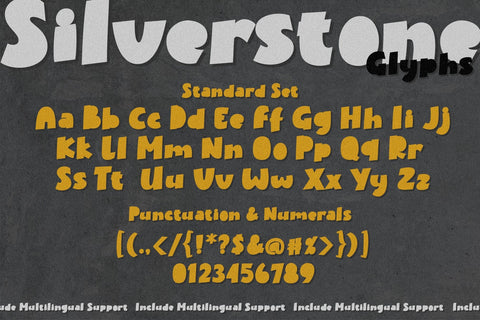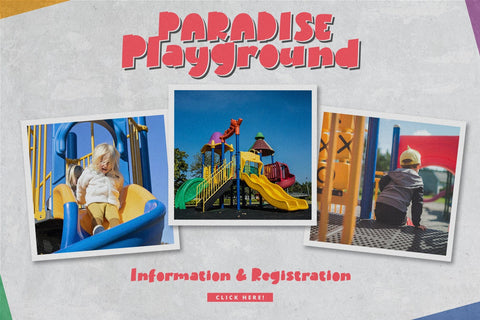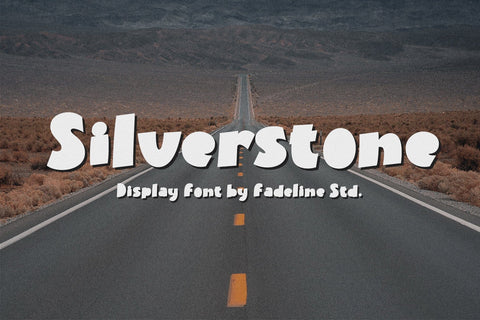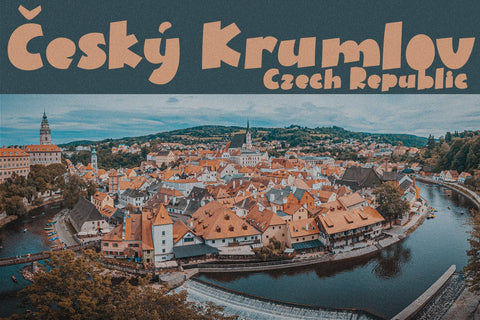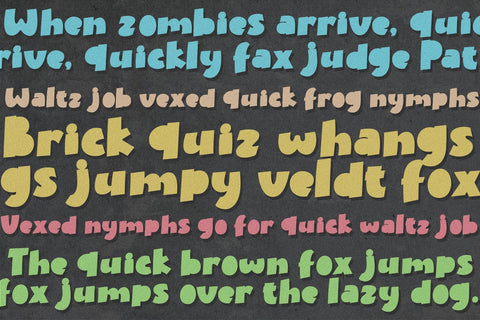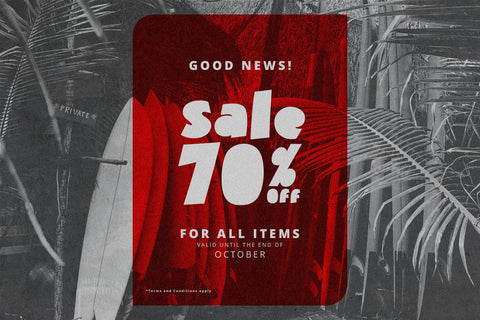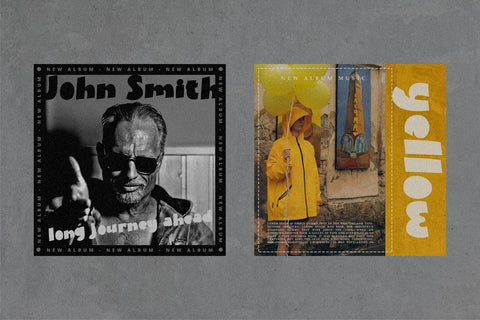
Silverstone | Display Font
Silverstone is a new Display Font with a bold and unique style. This font is carefully made to maintain the balance of each letter, so that creating a bold and strong style in this font. And very easy and convenient to use!
With a style like this, this font will be suitable in use for logo's, branding projects, homeware designs, product packaging, mugs, quotes, posters, shopping bags, logo's, t-shirts, book covers, name card, invitation cards, greeting cards, and all your other lovely projects.
You can use this font for your job very easily. Because there are many features in it. Contains the complete set of lower and uppercase letters, punctuation, numbers, web fonts, and multilingual support. This font also includes several ligatures and alternative style Stylistic Set For those of you who have software that is capable of working OpenType (Corel Draw / Photoshop / Illustrator / InDesign).